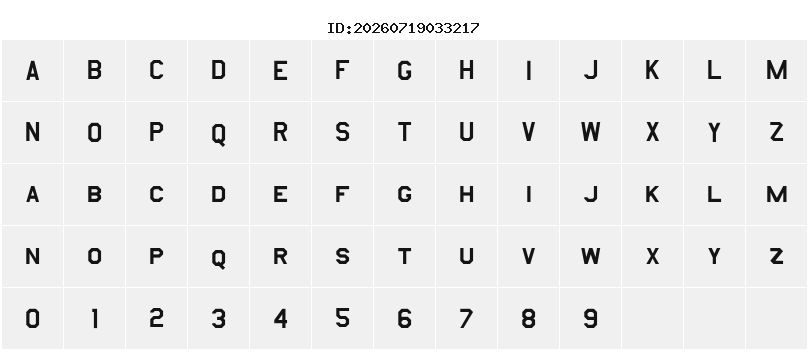
• Font Name: Constitution Class Hull
• Designer: Neale Davidson
• Description: Based on the hull lettering of the starships found in the original series and animated series of Star Trek.
Constitution Class Hull.ttf is a modern, elegant sans-serif font designed for ultimate readability and visual harmony. Perfect for branding, headlines, web design, and print materials.